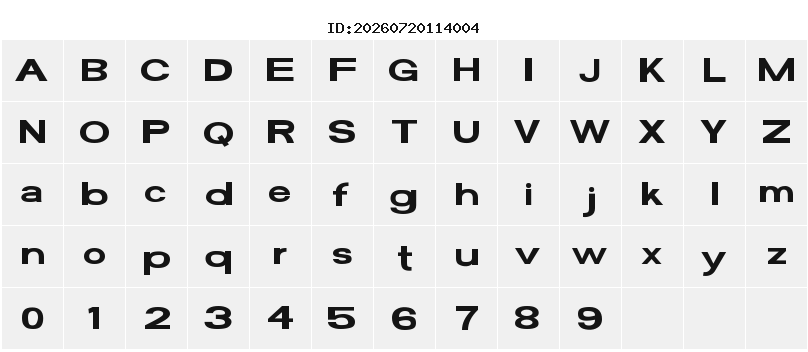
FunZone Two Wide Preview
• Font Name: FunZone Two Wide
• Full Font Name: FunZone Two Wide
• Version: Version 1.00 May 28, 2013, initial release
About FunZone Two Wide.ttf
FunZone Two Wide.ttf is a modern, elegant sans-serif font designed for ultimate readability and visual harmony. Perfect for branding, headlines, web design, and print materials.